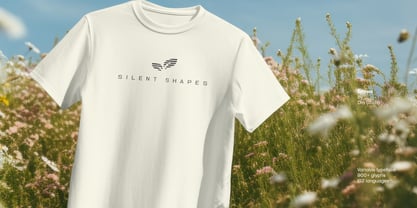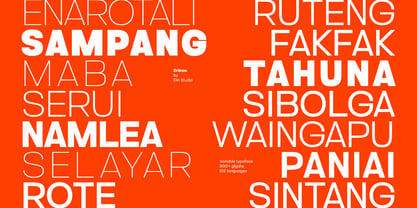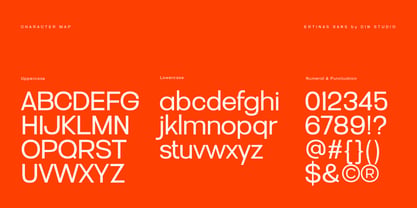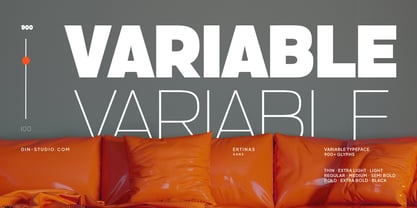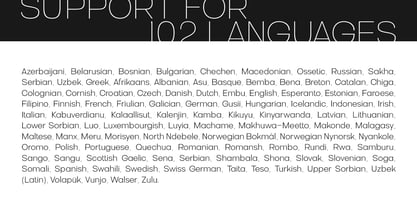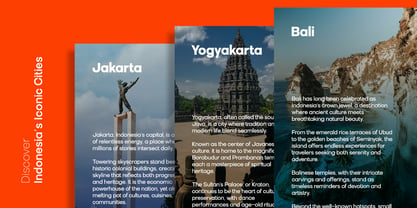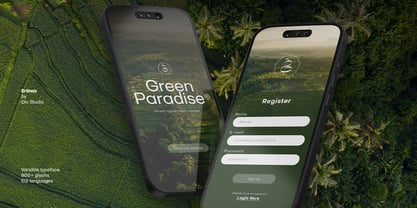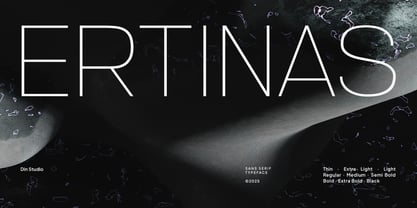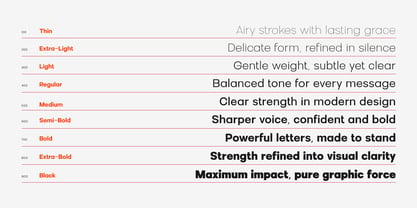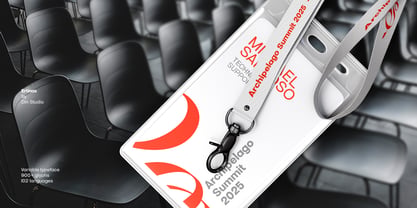
Ertinas
von Din Studio
Die Schriftfamilie Ertinas wurde von Donis Miftahudin entworfen und von Din Studio veröffentlicht. Ertinas enthält 9 Stile und Familienpaketoptionen. Mehr über diese Familie
Ertinas is a modern sans serif font family crafted to embody simplicity, elegance, and luxury. Every curve and line in Ertinas is thoughtfully designed to convey modern minimalism while maintaining a warm, human touch. With nine distinct weights — from Thin to Black — this versatile typeface offers exceptional flexibility for both display and body text. Its clean geometry and graceful proportions make it the perfect choice for every design. In addition, enjoy the features here. Features: Multilingual Supports PUA Encoded Numerals and Punctuations Ertinas fits in branding, quotes, name cards, apparels, logos, posters, and many more designs. Find out more ways to use this font by taking a look at the font preview. Thanks for purchasing our fonts. Hopefully, you have a great time using our font. Feel free to contact us anytime for further information or when you have trouble with the font. Thanks a lot and happy designing.
Din Studio is a type design studio founded by Donis Miftahudin in 2017. The studio focuses on creating unique and visually appealing script and display fonts that stand out in the industry. Donis Miftahudin is a well-known type designer in the industry and has created several popular fonts under the Din Studio brand.The fonts designed by Din Studio are characterized by their distinct style and aesthetic appeal. The studio's designs often incorporate unique elements, such as intricate ligatures and swashes, to create fonts that are not only visually stunning but also highly functional. The studio's fonts are often used in a variety of applications, including branding, advertising, and editorial design.Din Studio's fonts are highly regarded in the design community and have received recognition from industry publications and organizations. The studio has been featured in several design blogs and magazines, and its fonts have won awards at prestigious design competitions.One of the hallmarks of Din Studio's work is its commitment to innovation and experimentation. The studio is constantly exploring new techniques and approaches to type design, pushing the boundaries of what is possible in the field. This dedication to innovation has helped Din Studio establish itself as one of the most exciting and influential type design studios in the industry.Overall, Din Studio is a dynamic and innovative type design studio that is pushing the boundaries of what is possible in the field. With its focus on unique and visually appealing script and display fonts, the studio is poised to continue making a significant impact in the design community for years to come.